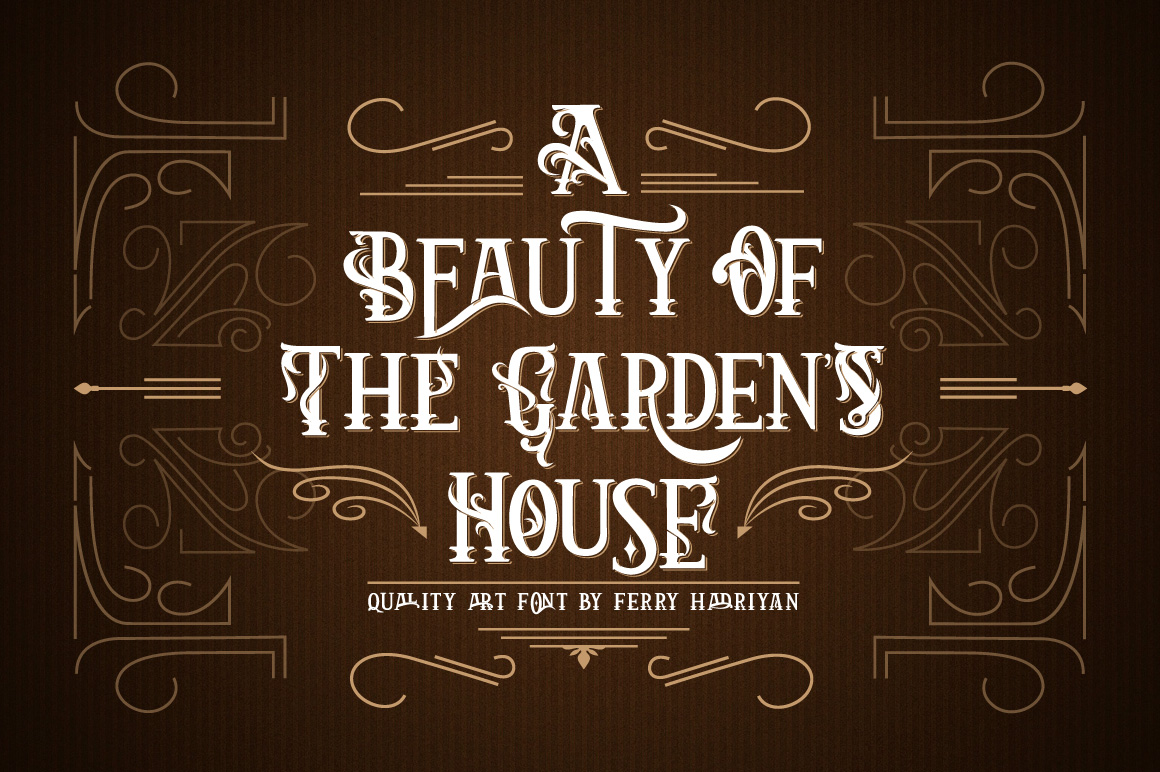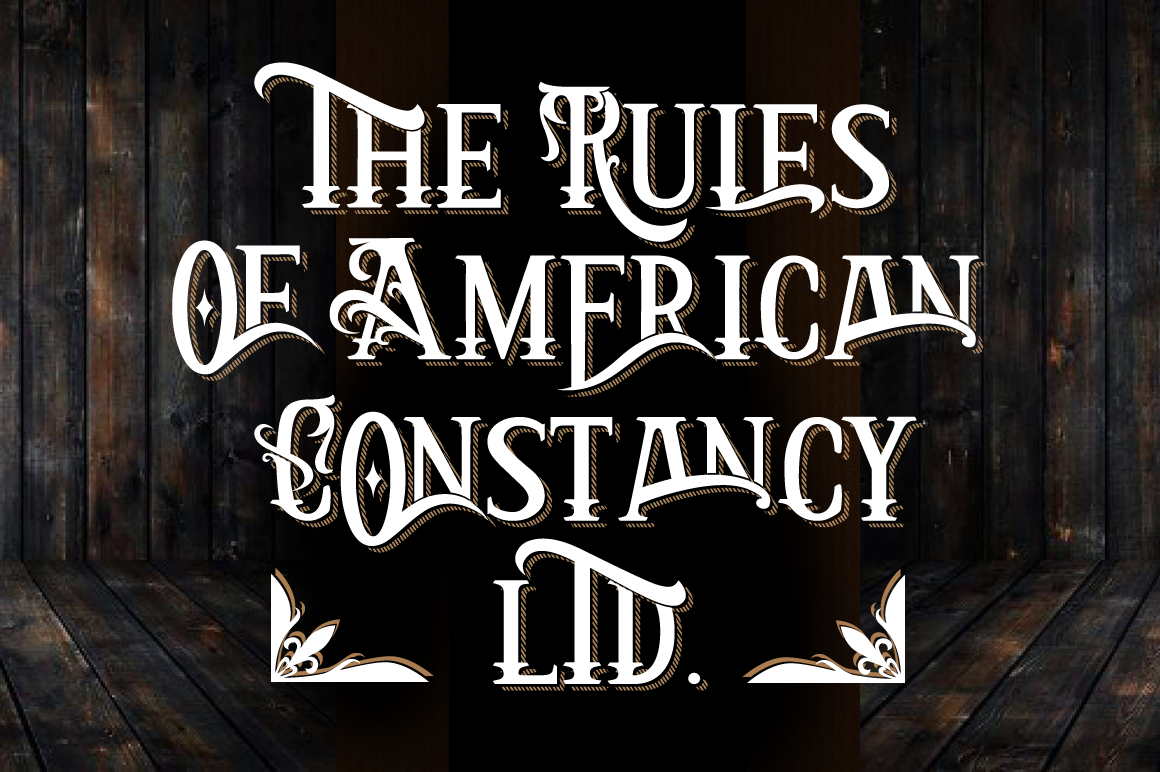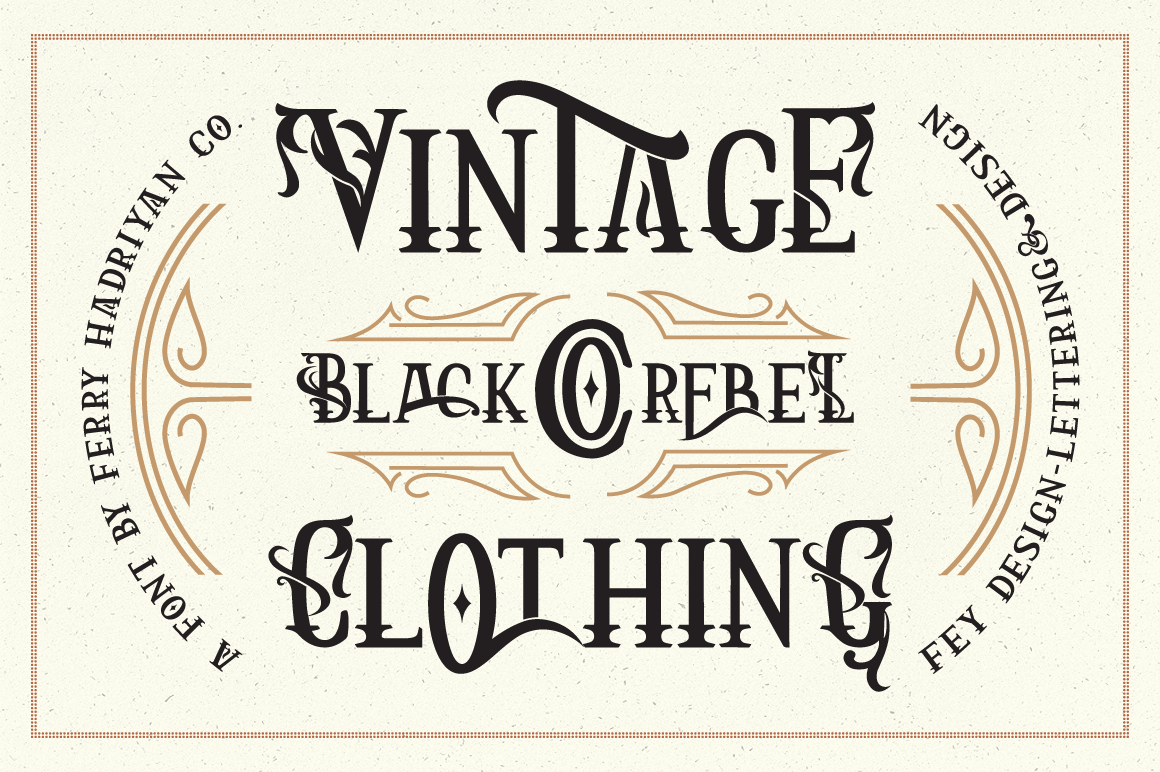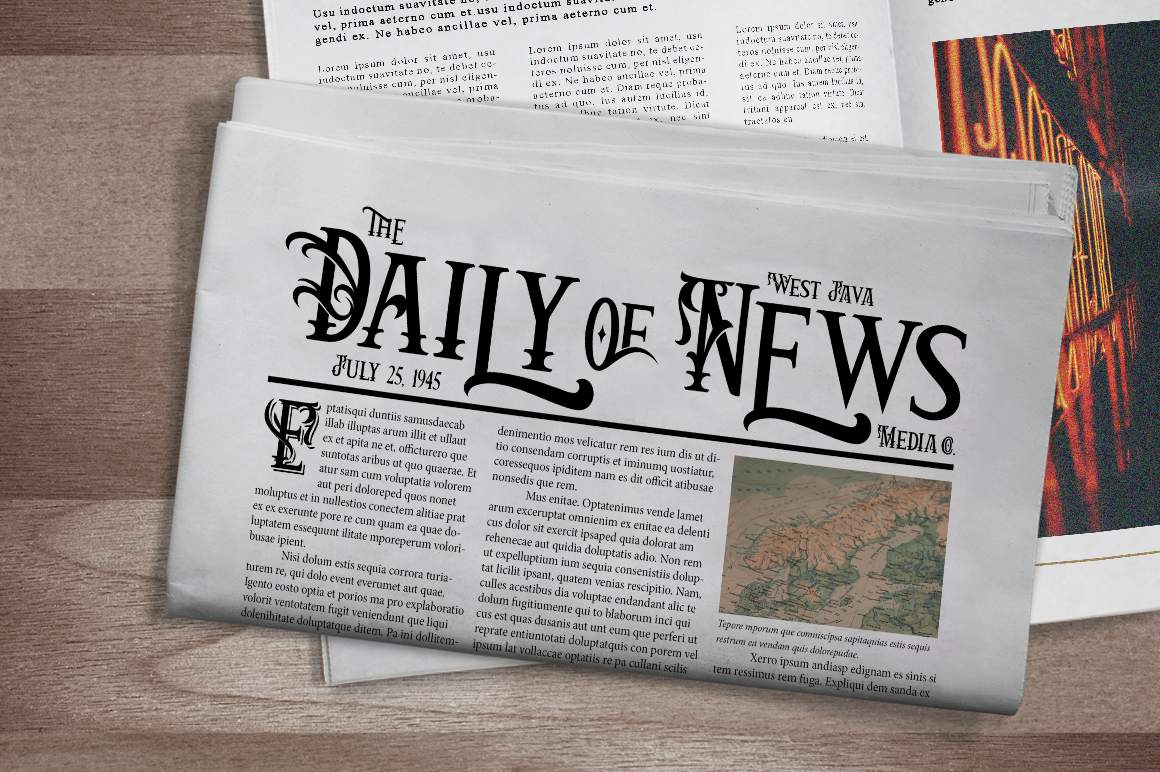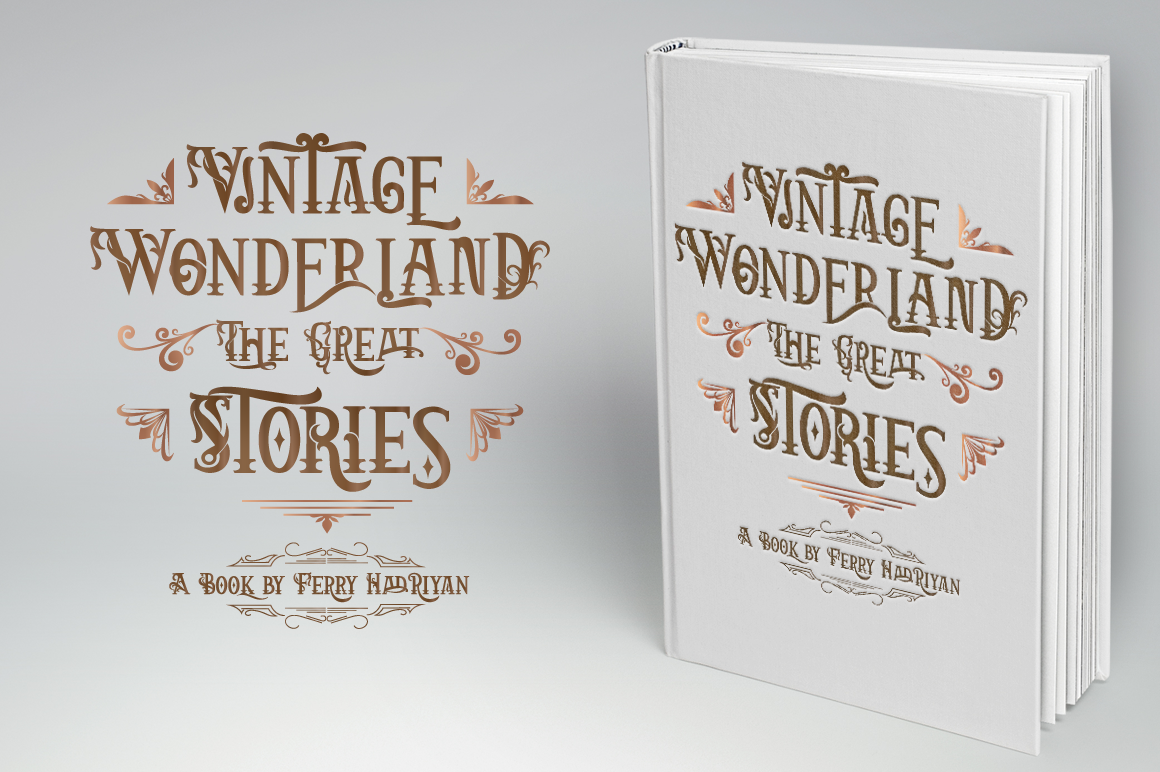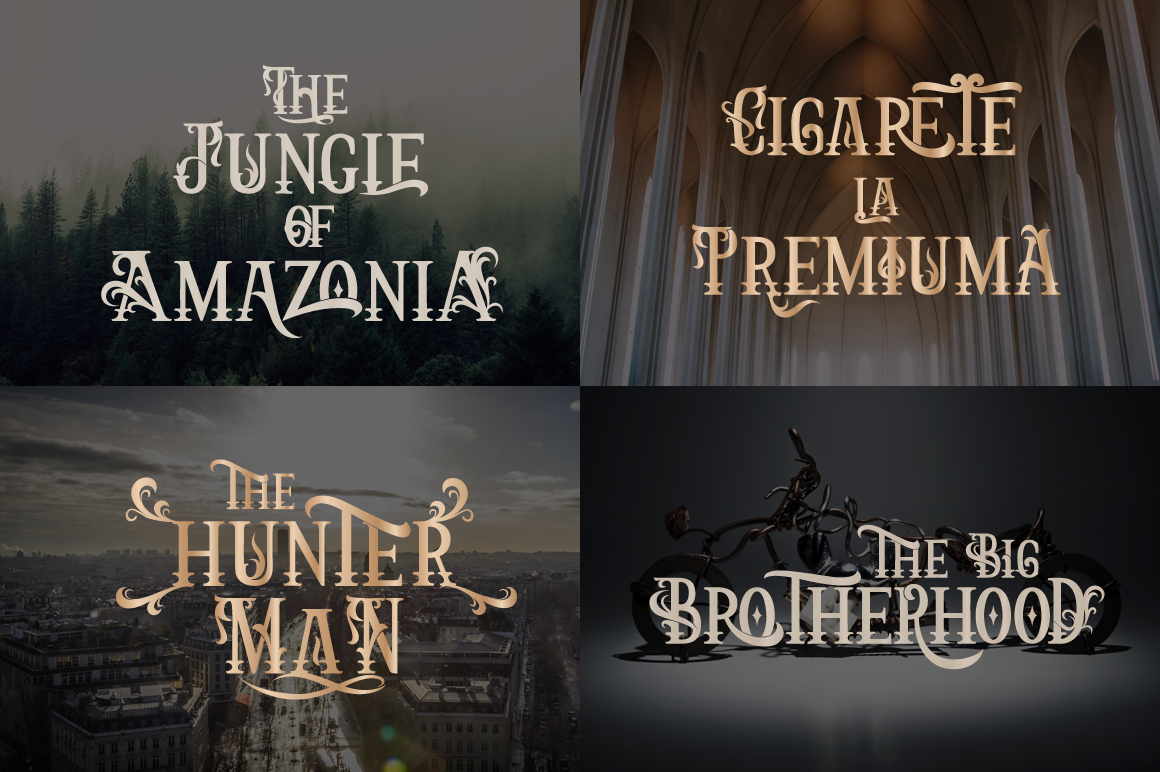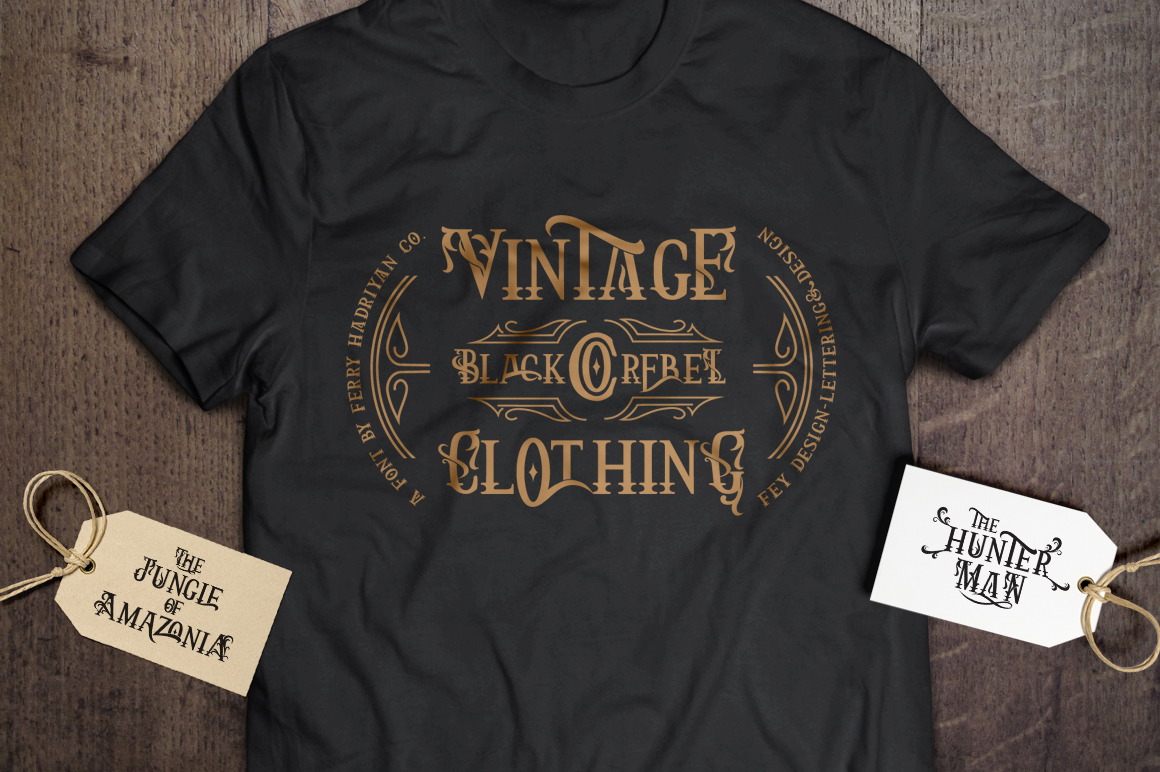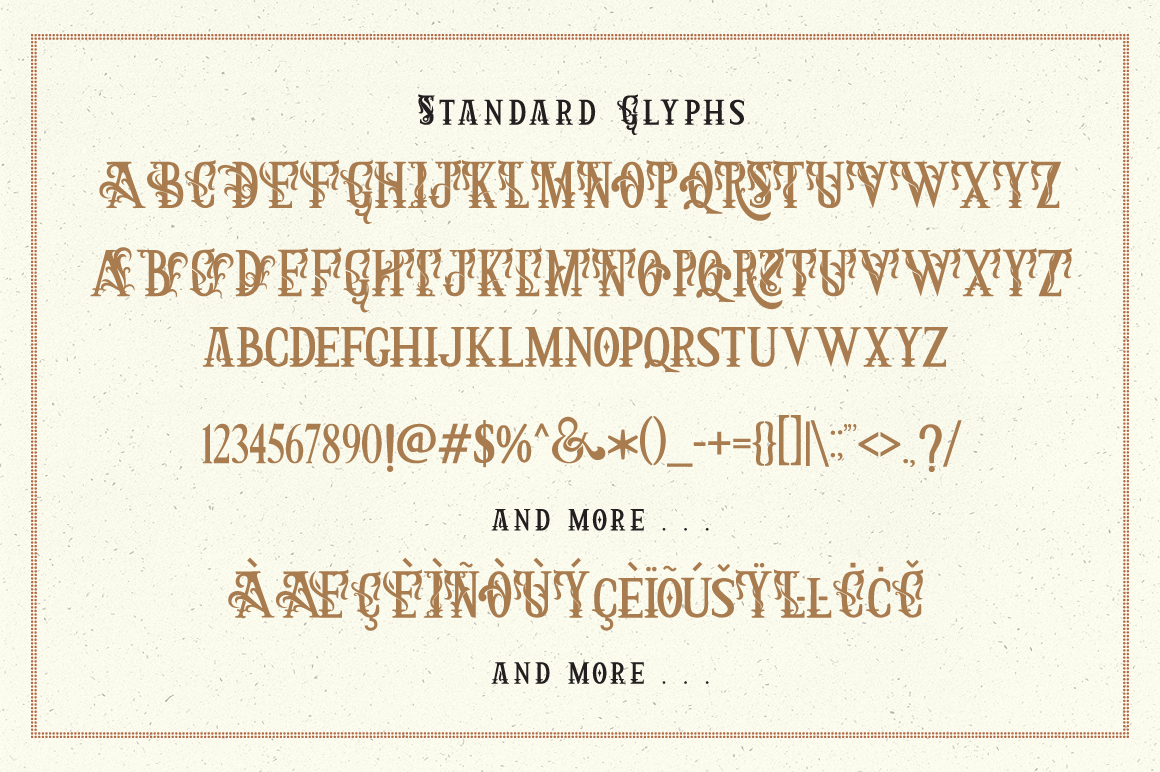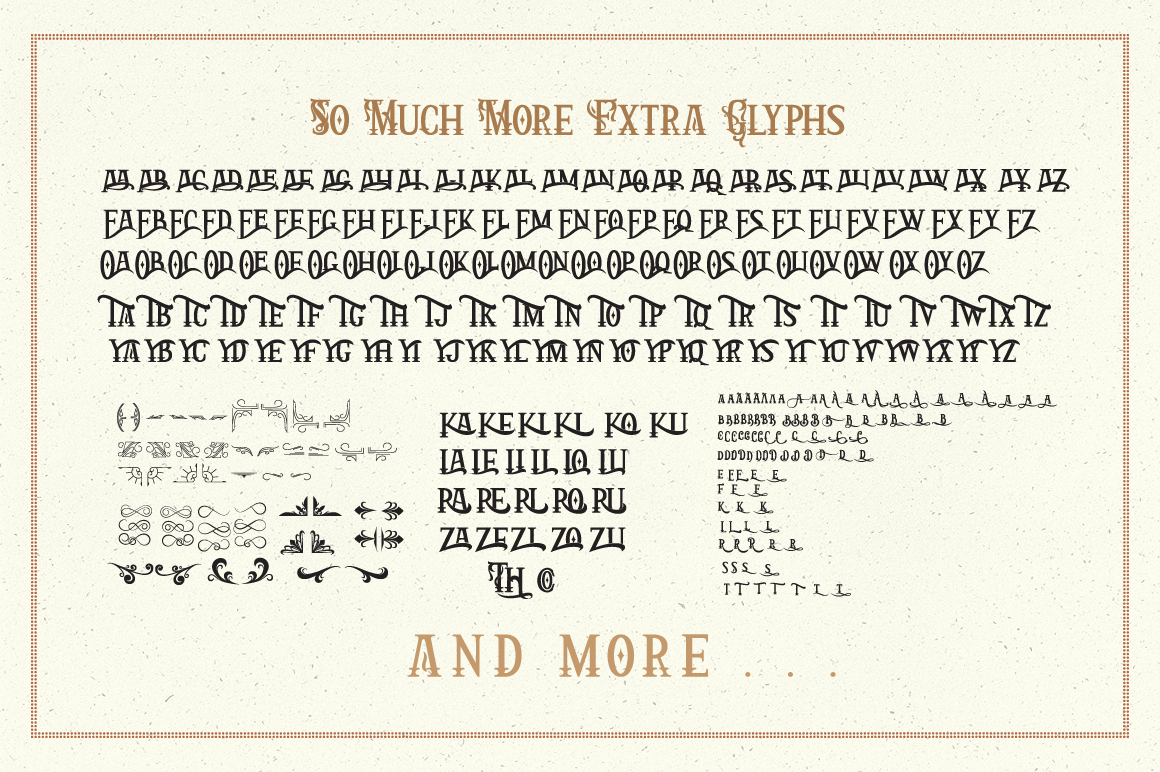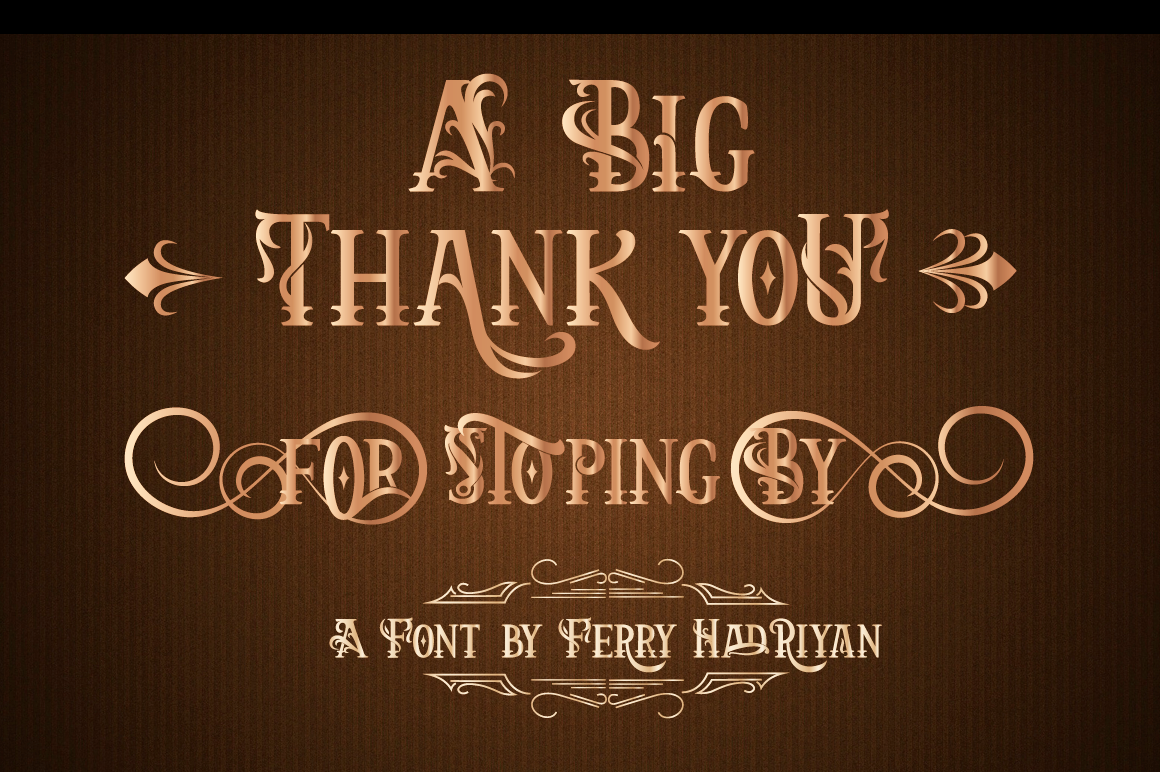
Arthouse – Display Font
About the Product
Arthouse
Arthouse is a Display font with a Vintage Art style, so many features OpenType with standard ligatures, Discretionary Ligatures, Stylistic Set, Decorative, etc, Suitable for design, element designs, weddings, events, t-shirts, logos, badges, stickers, and awesome work, etc…
Feature Of The Font:
– Combination alternative ligature fonts
– Standard Ligatures, Stylistic Set, Multilanguage Characters, etc
– Vintage Decorative Art
– Multilanguage Support
– Unique style fonts
– Easy customize